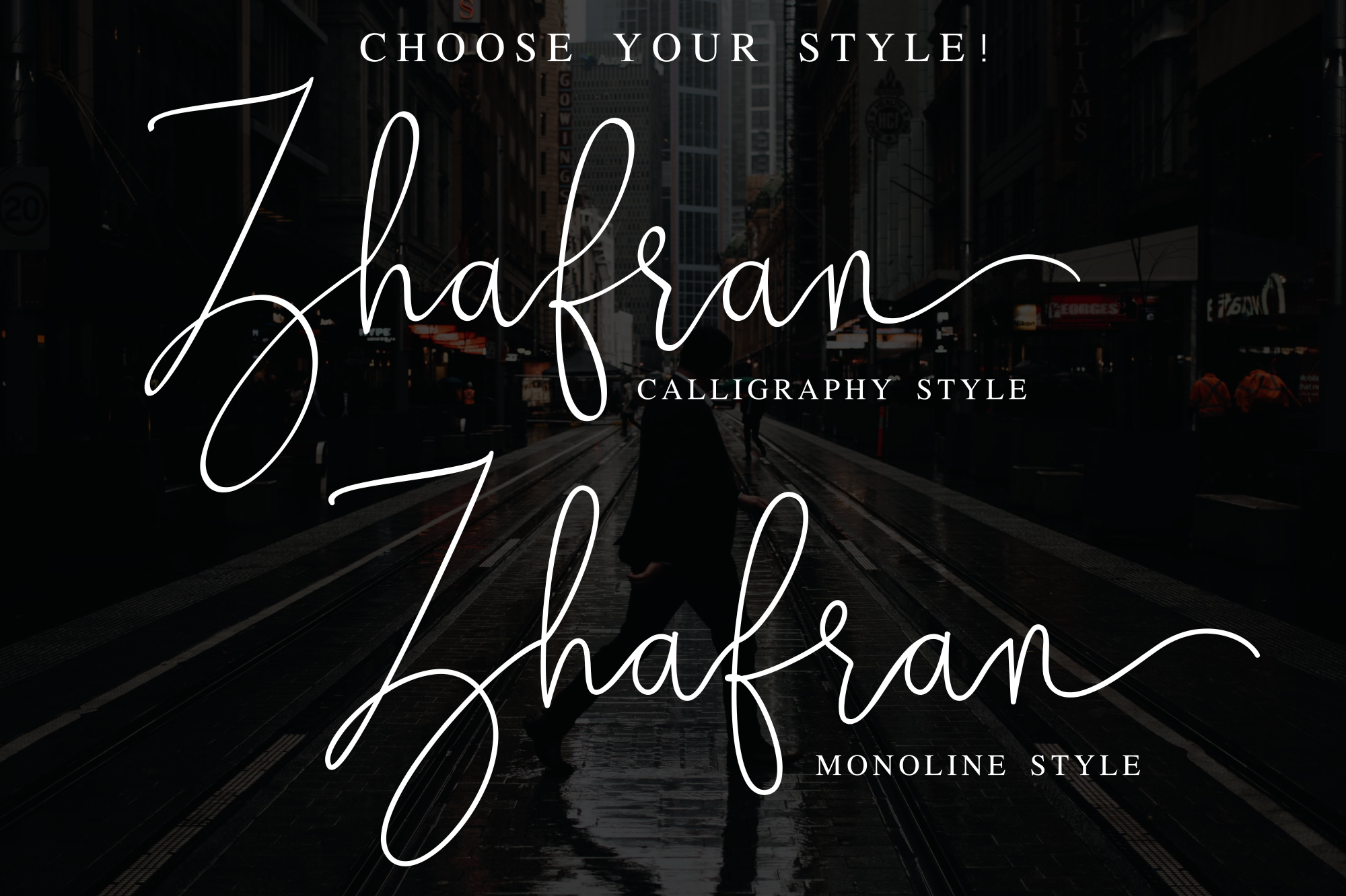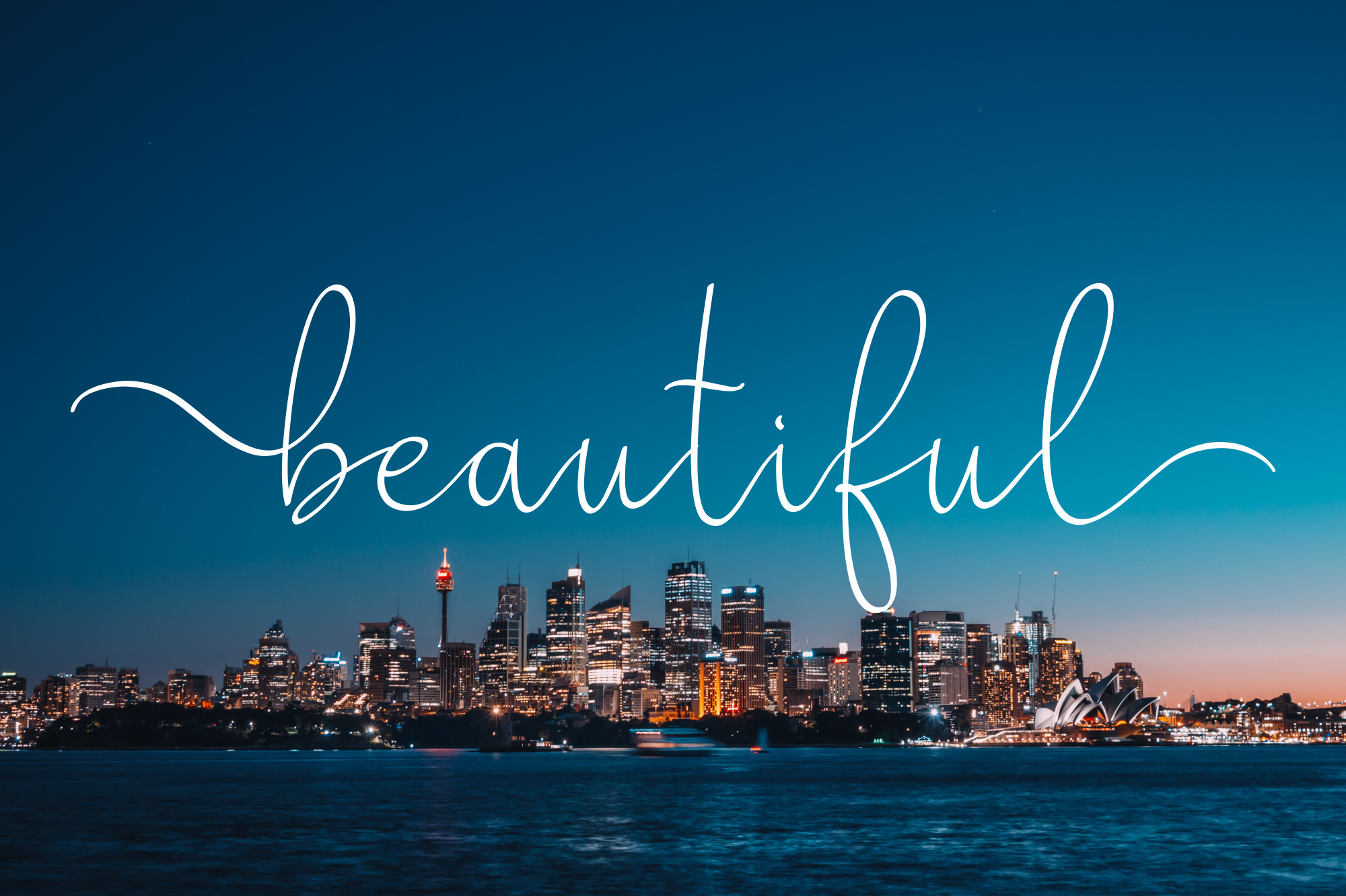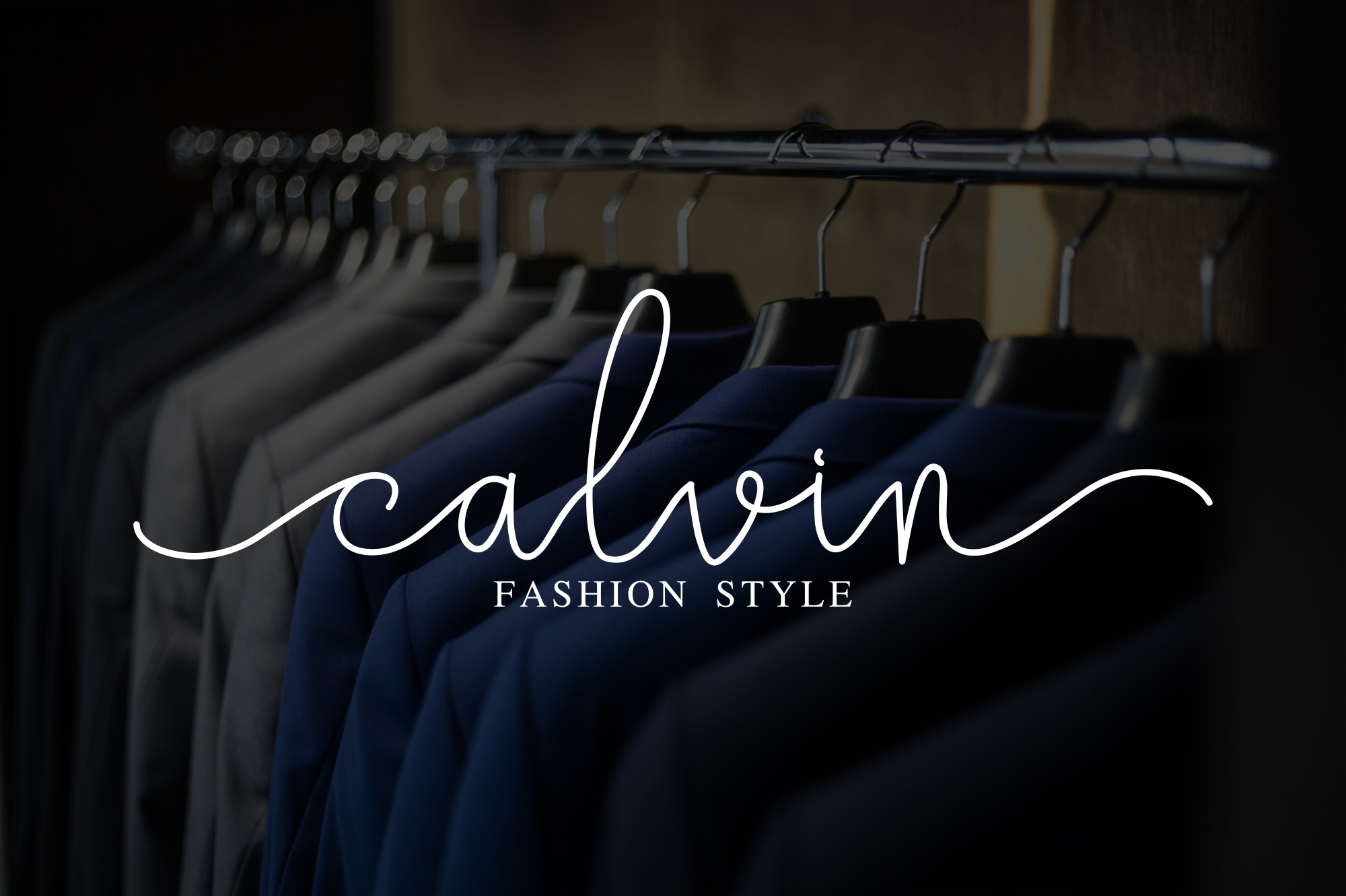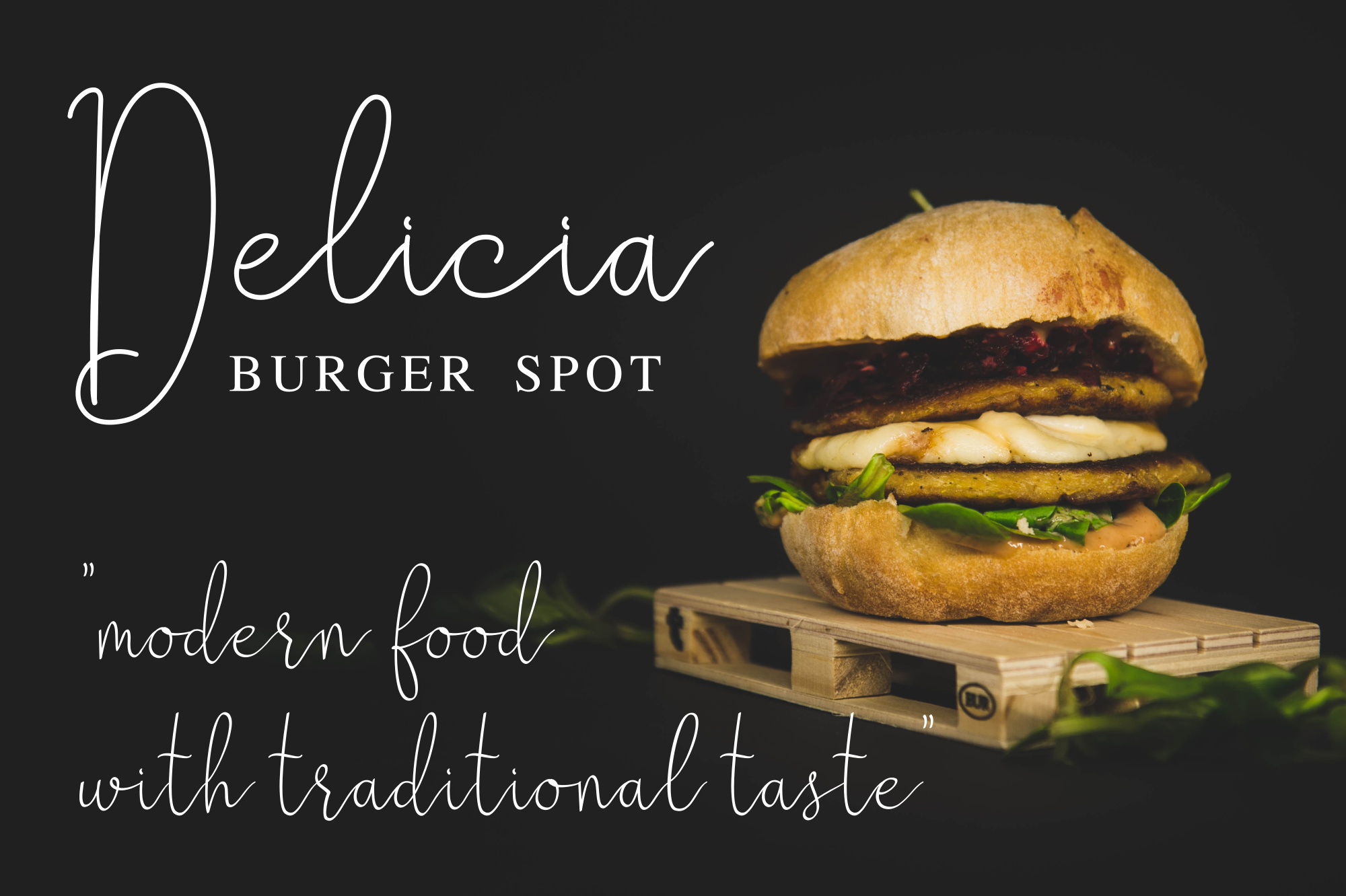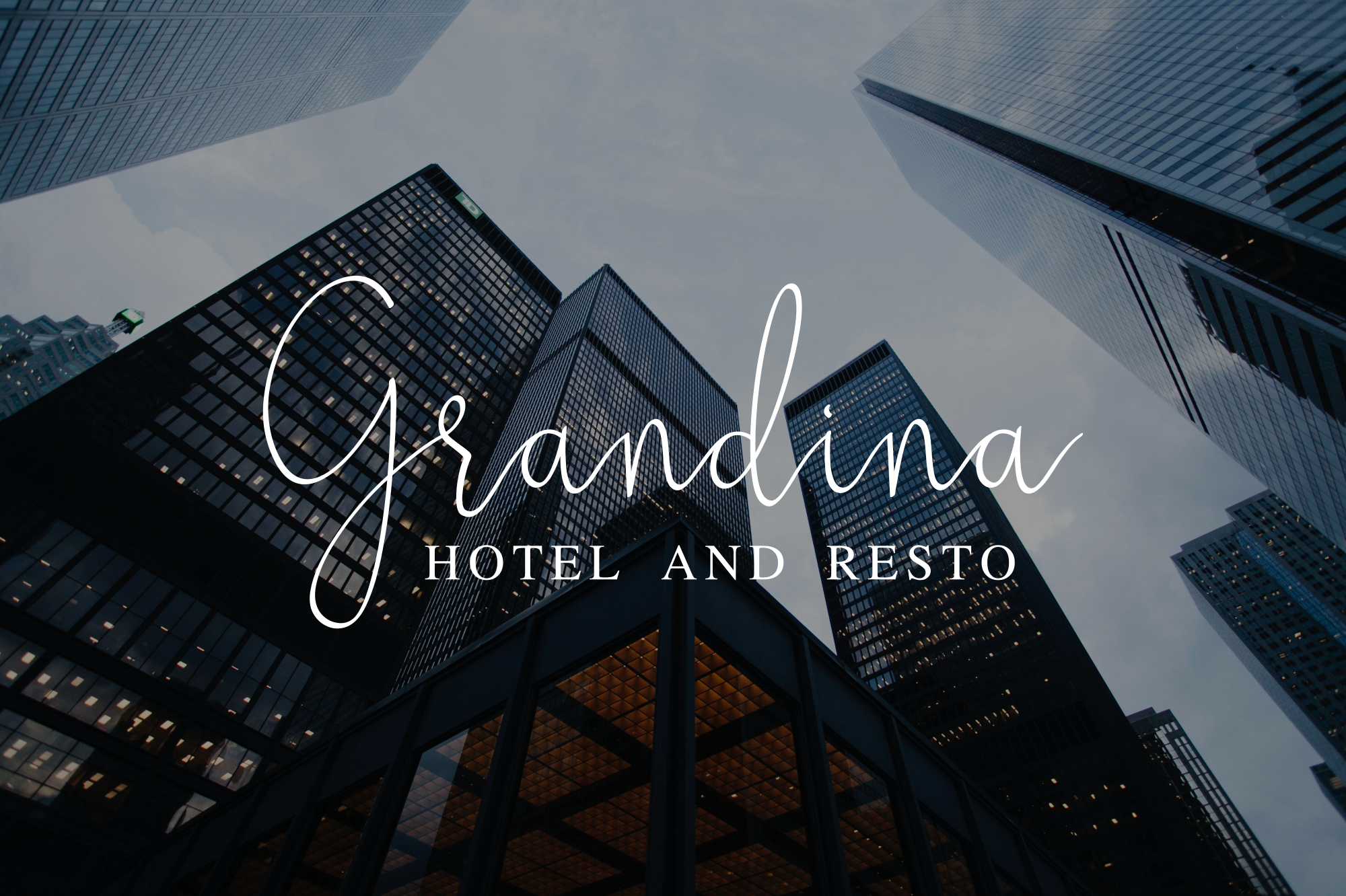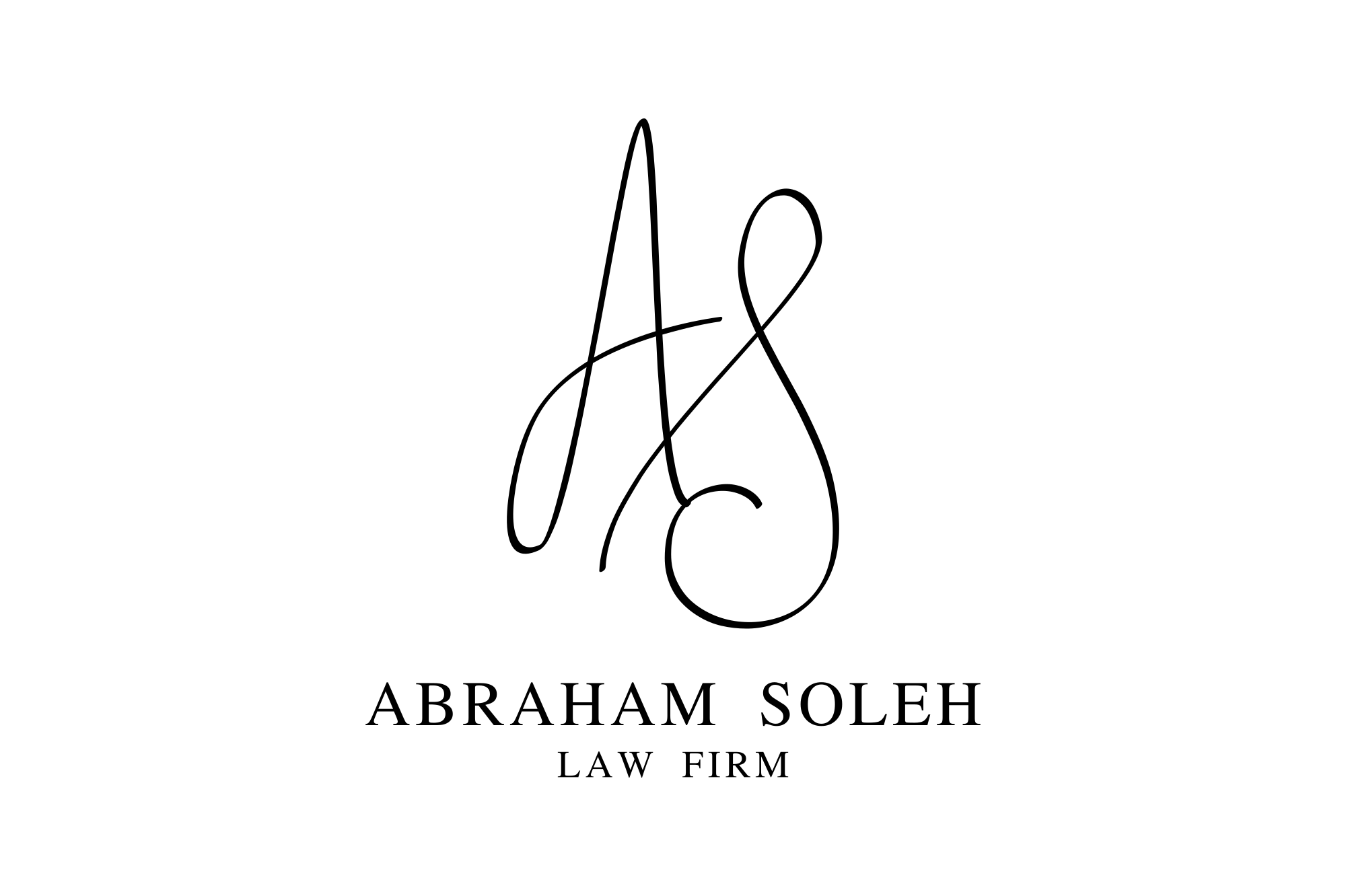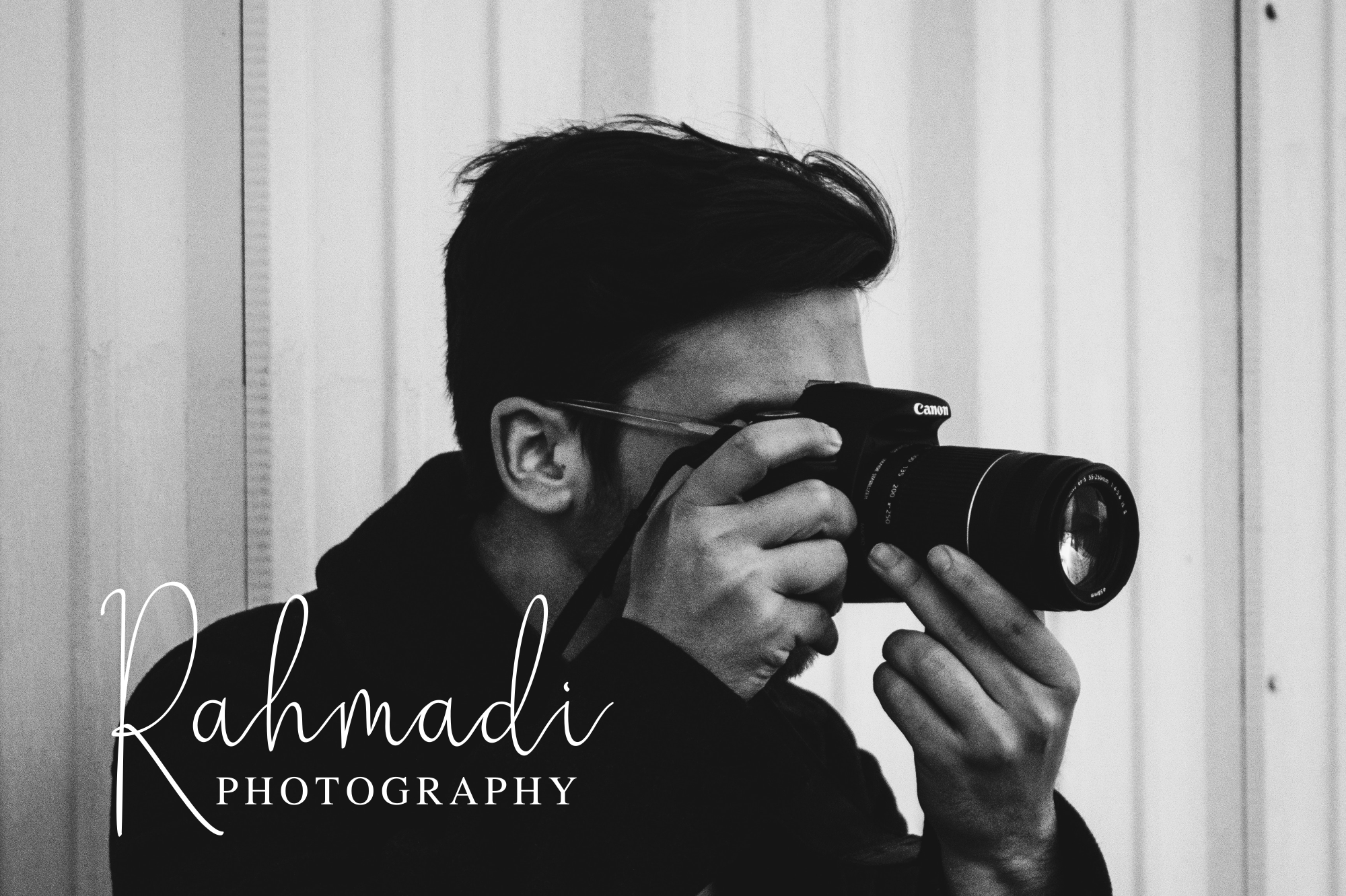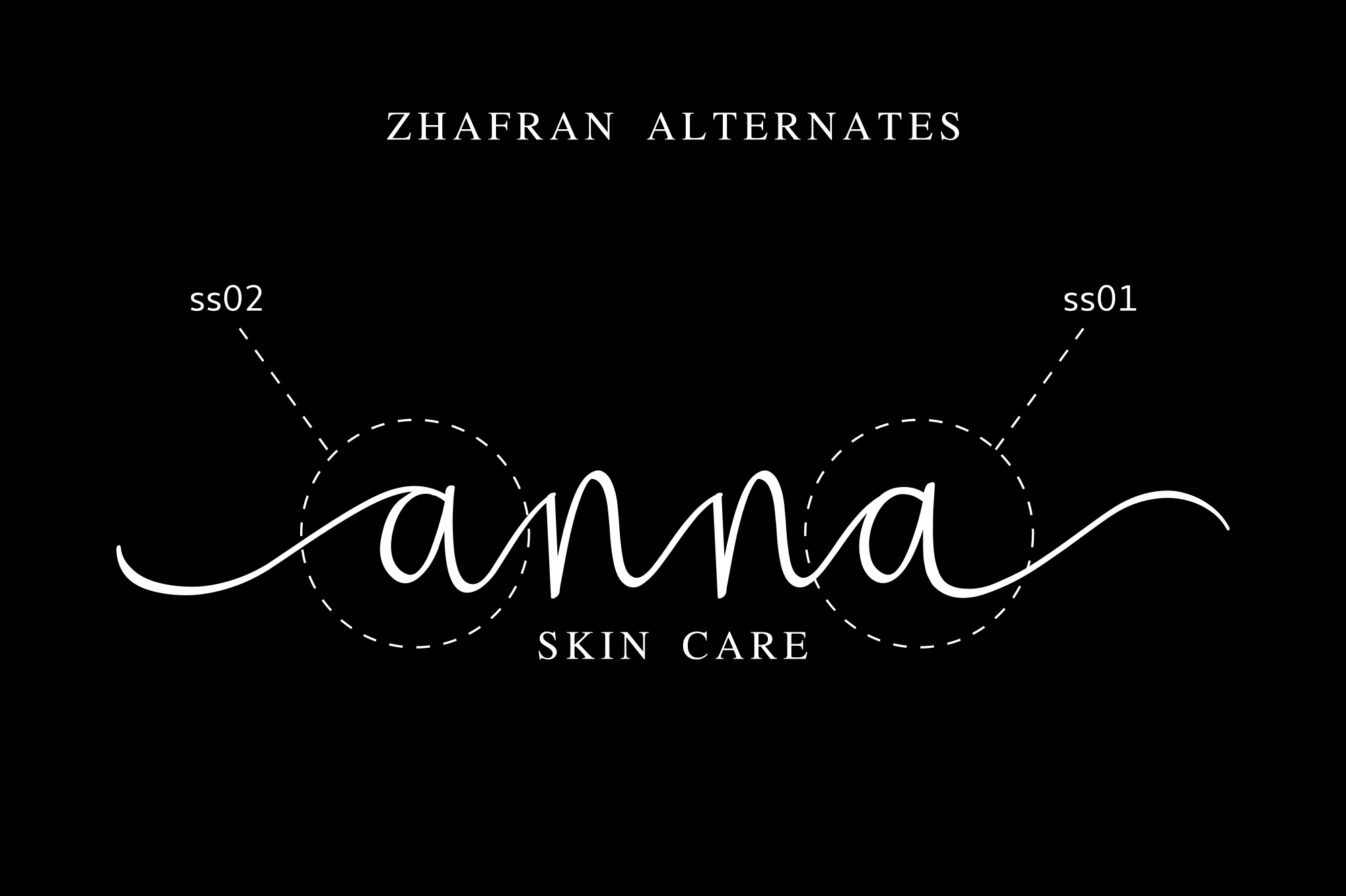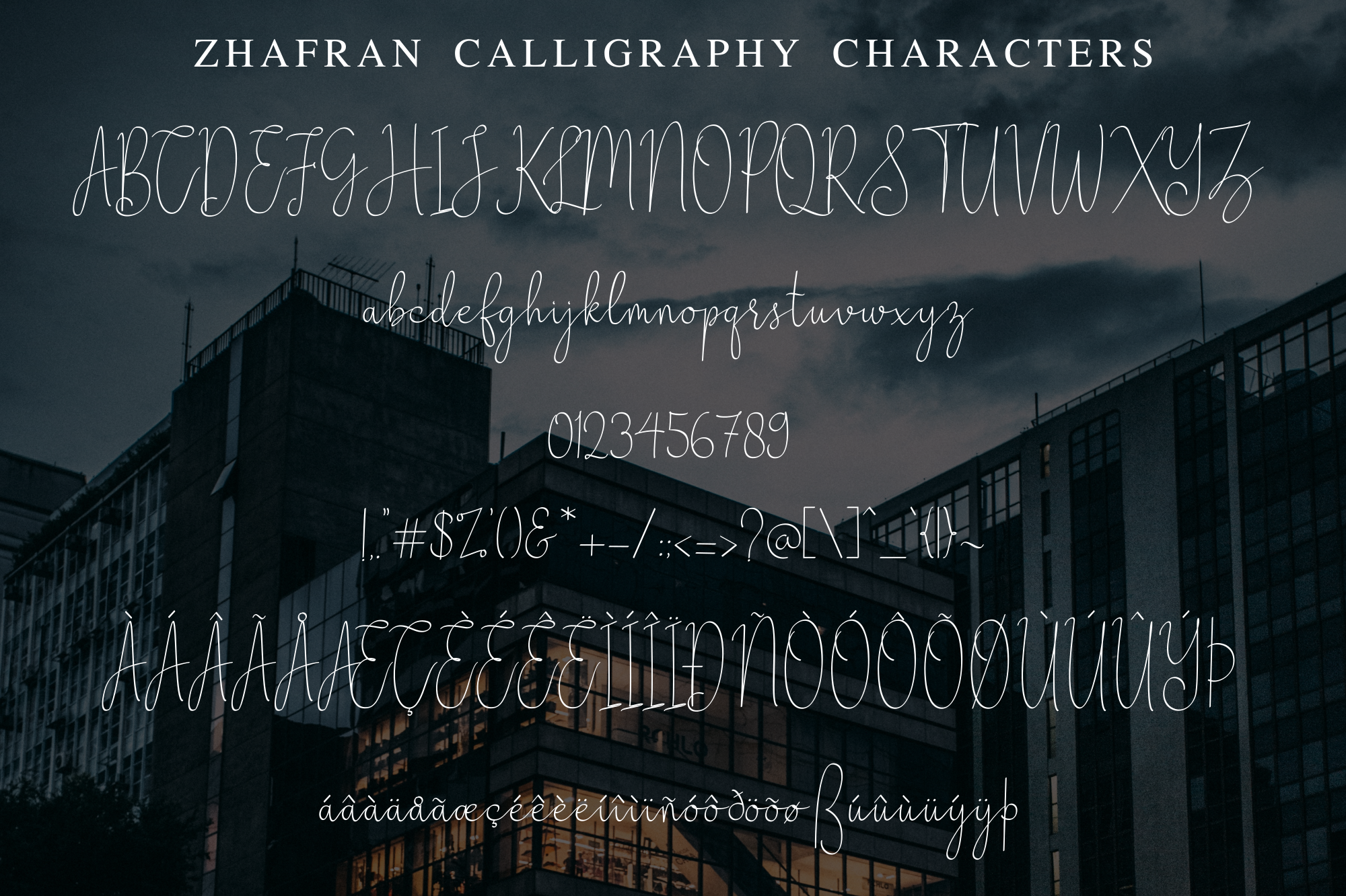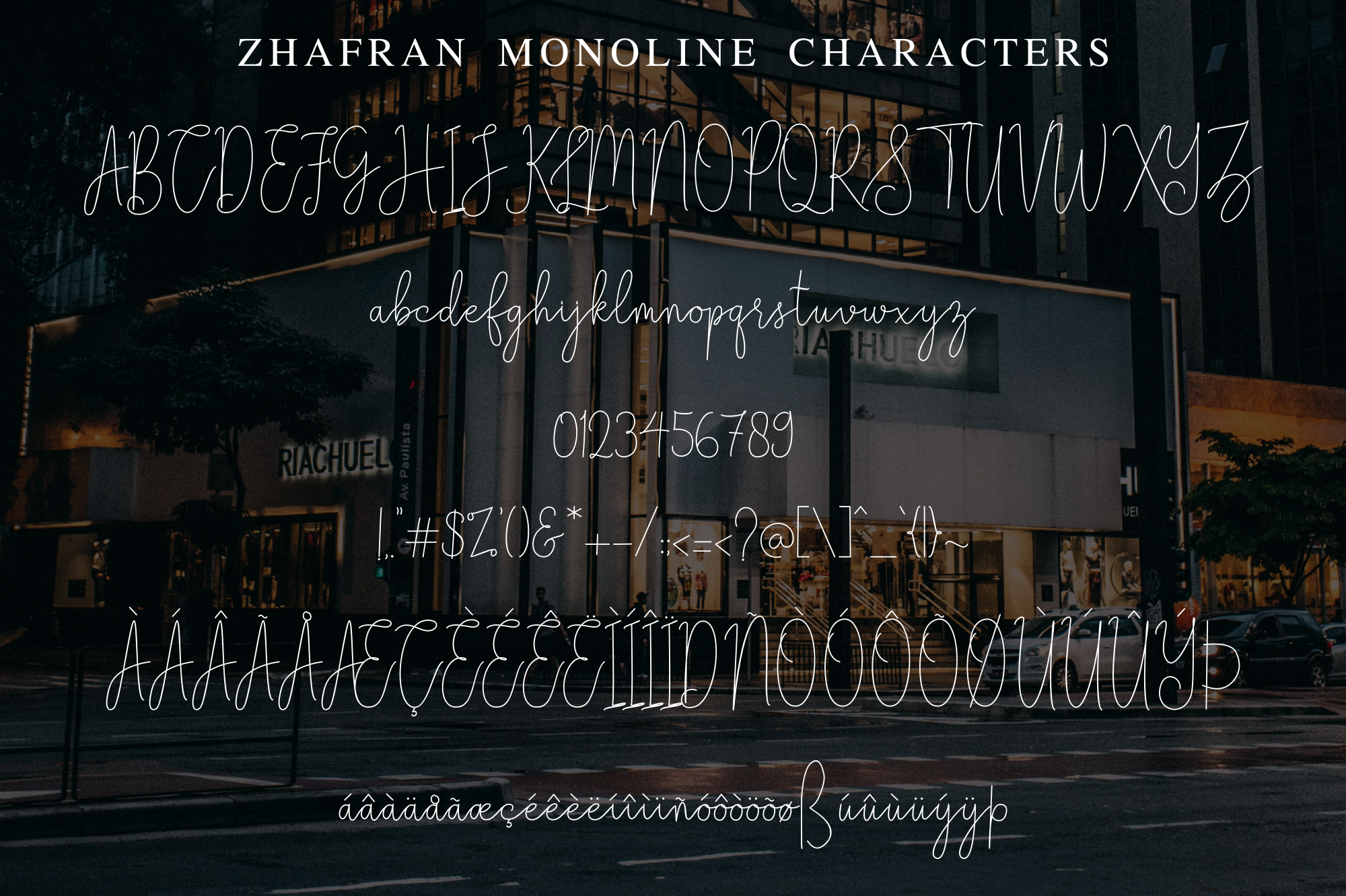
Zhafran - Signature Font
Zhafran is an elegant signature font. It's perfect for logos, unique branding, photo overlays, signatures, and much more.
Zhafran, Zhafran Line
Logos, unique branding, photo overlays, signatures, and much more